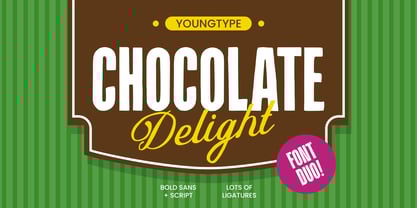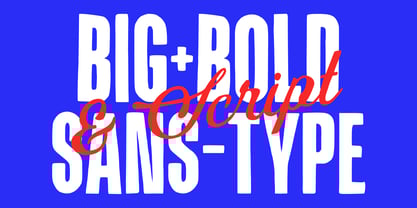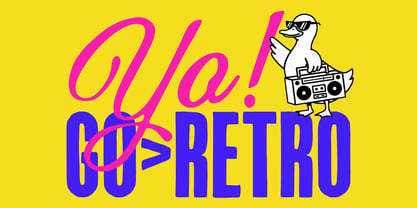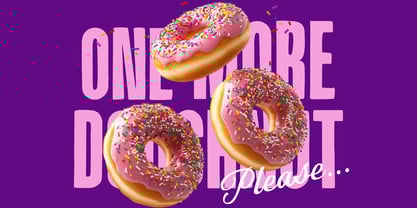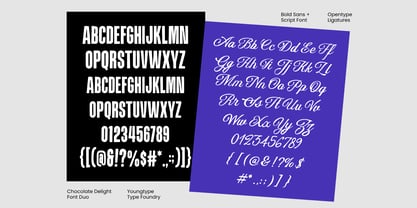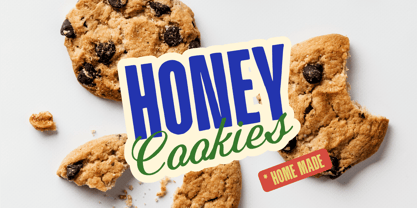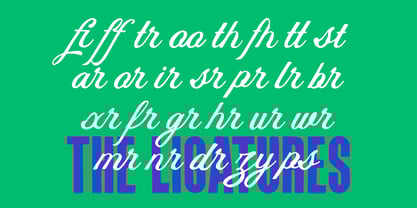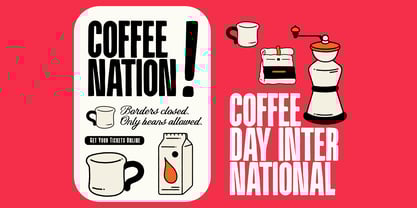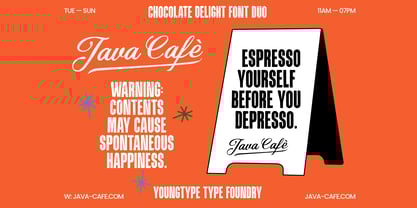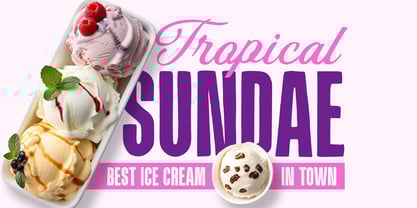
Chocolate Deligth
by Youngtype
The Chocolate Deligth Font Family was designed by Naufal Paramata and published by Youngtype. Chocolate Deligth contains 2 styles and family package options. More about this family
The "Chocolate Delight" font is a bold and playful typeface that combines a strong sans-serif style with a flowing script. The font duo pairs a solid, modern sans-serif for the word "CHOCOLATE" with a more elegant, cursive-like script for "Delight," creating a charming contrast. The use of ligatures adds a unique touch to the script portion, enhancing its fluid and dynamic appearance. The bright yellow accents and the brown background evoke a warm, inviting, and delightful feel, making it perfect for food-related branding, packaging, or any project aiming to capture a sense of indulgence and joy. Contains full set : Uppercase Lowercase Ligatures Punctuation Number Multilingual support. Thank you
Designers: Naufal Paramata
Foundry: Youngtype